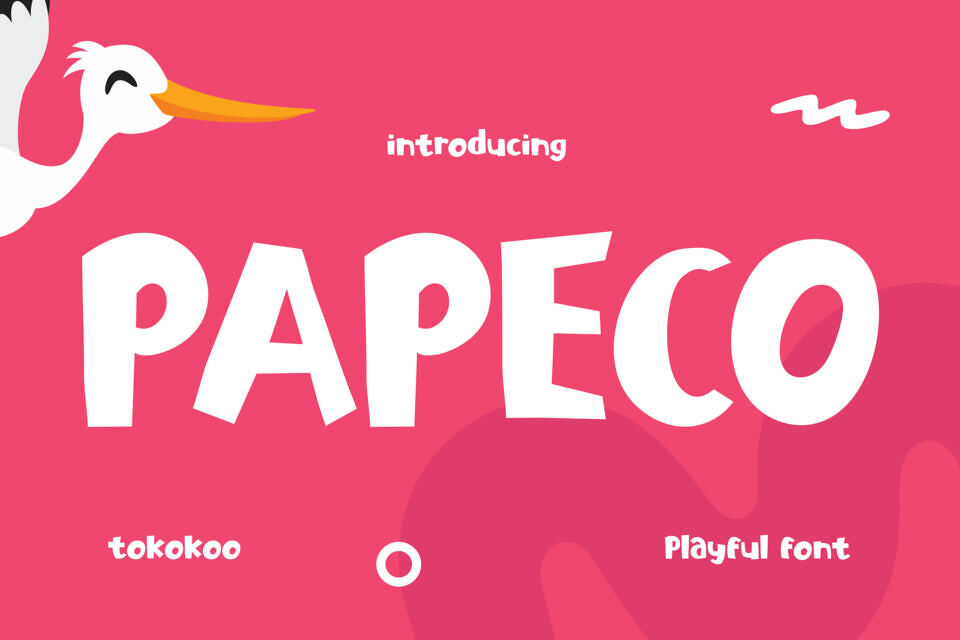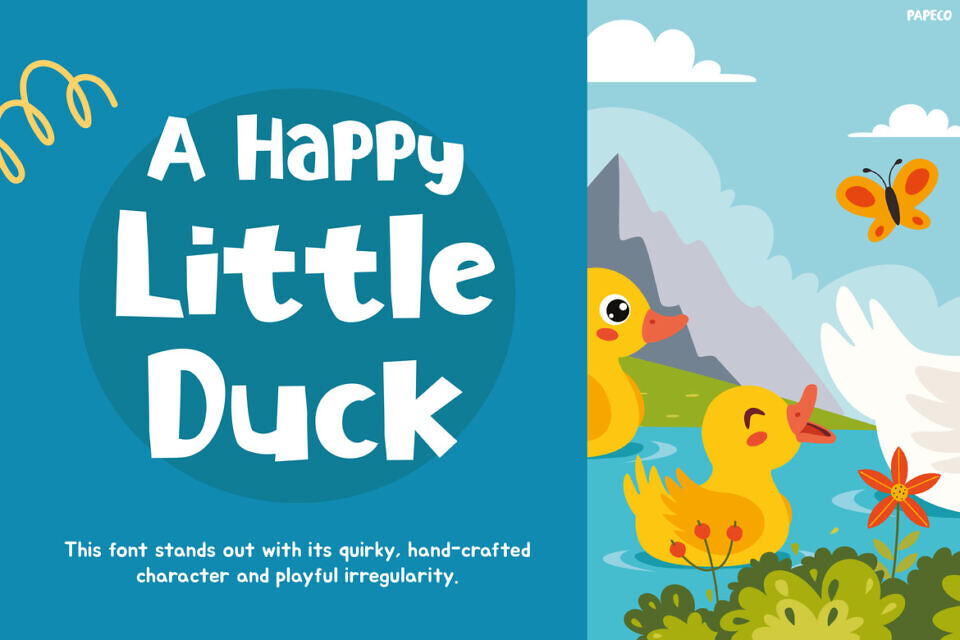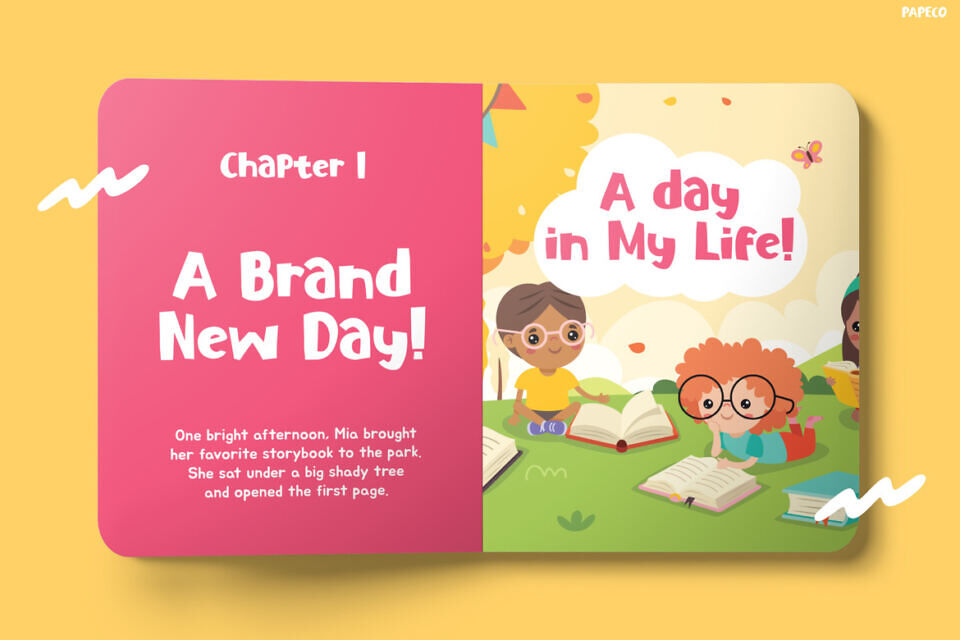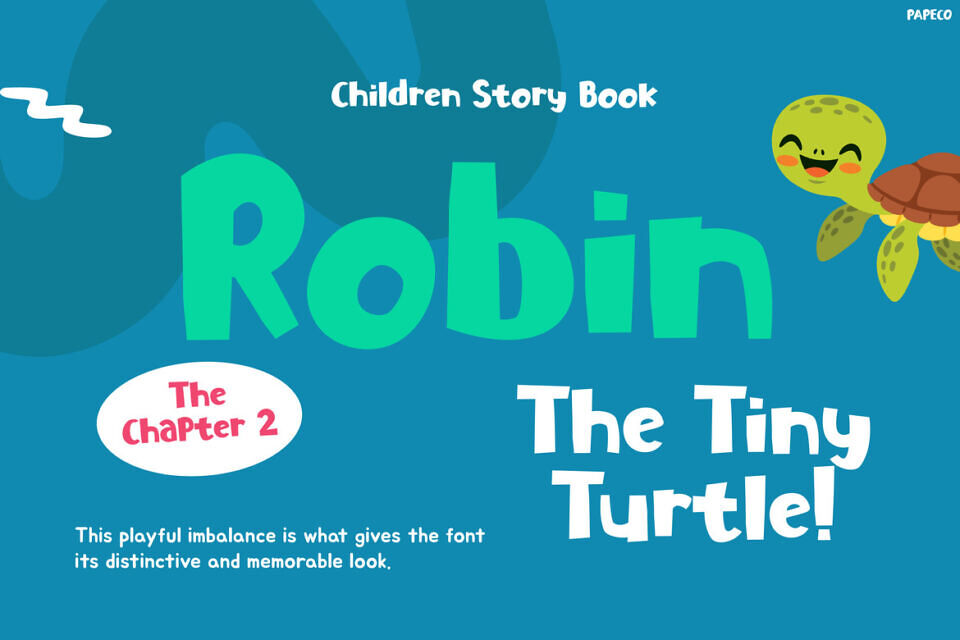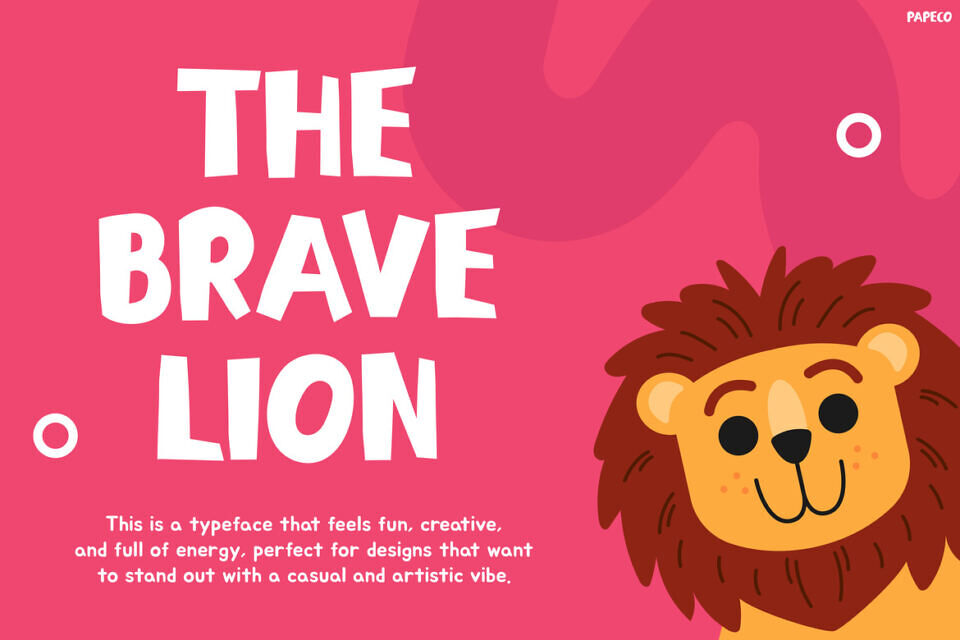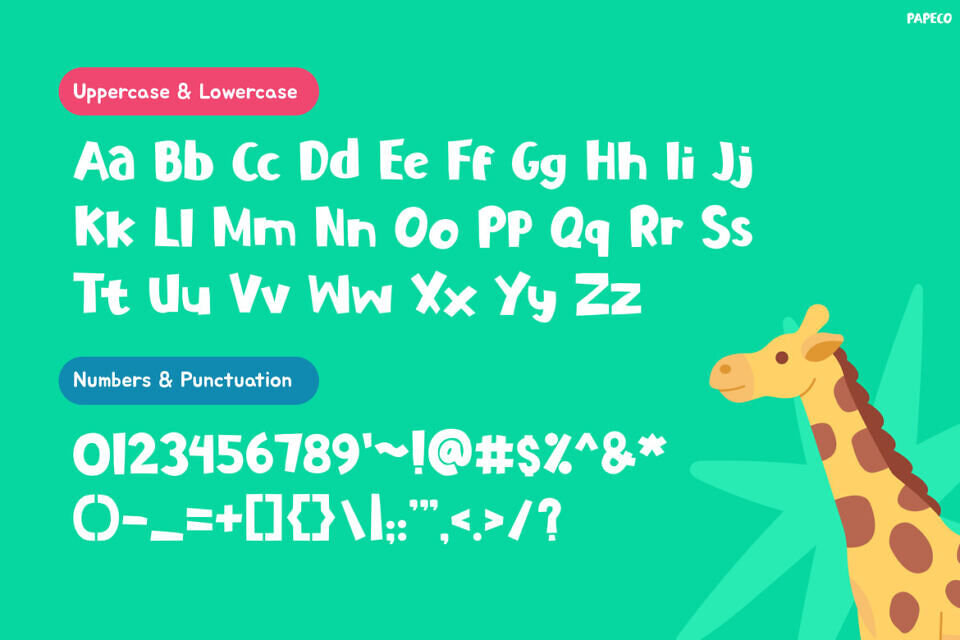
Papeco is a charming and playful display typeface created to bring warmth, fun, and imagination into children’s design projects. Its soft rounded shapes, friendly curves, and slightly hand-drawn character make the font feel joyful and approachable. Because of its playful style, the typography instantly creates a cheerful atmosphere. As a result, headlines look lively, expressive, and easy for kids to read.
The cute cartoon-inspired letterforms add a storytelling feel that perfectly matches themes like animals, adventures, and magical stories. Works beautifully in projects that require a bright and imaginative mood. For example, it looks perfect in children’s books, storytelling graphics, educational posters, and playful branding designs.